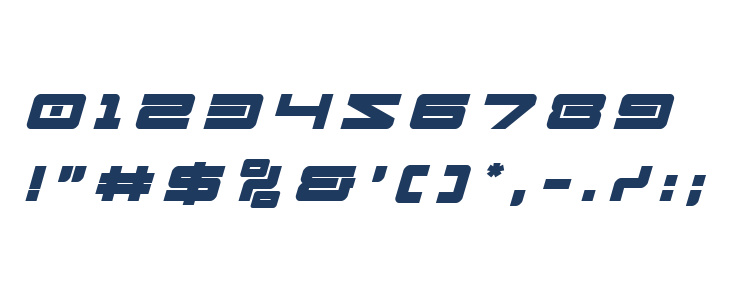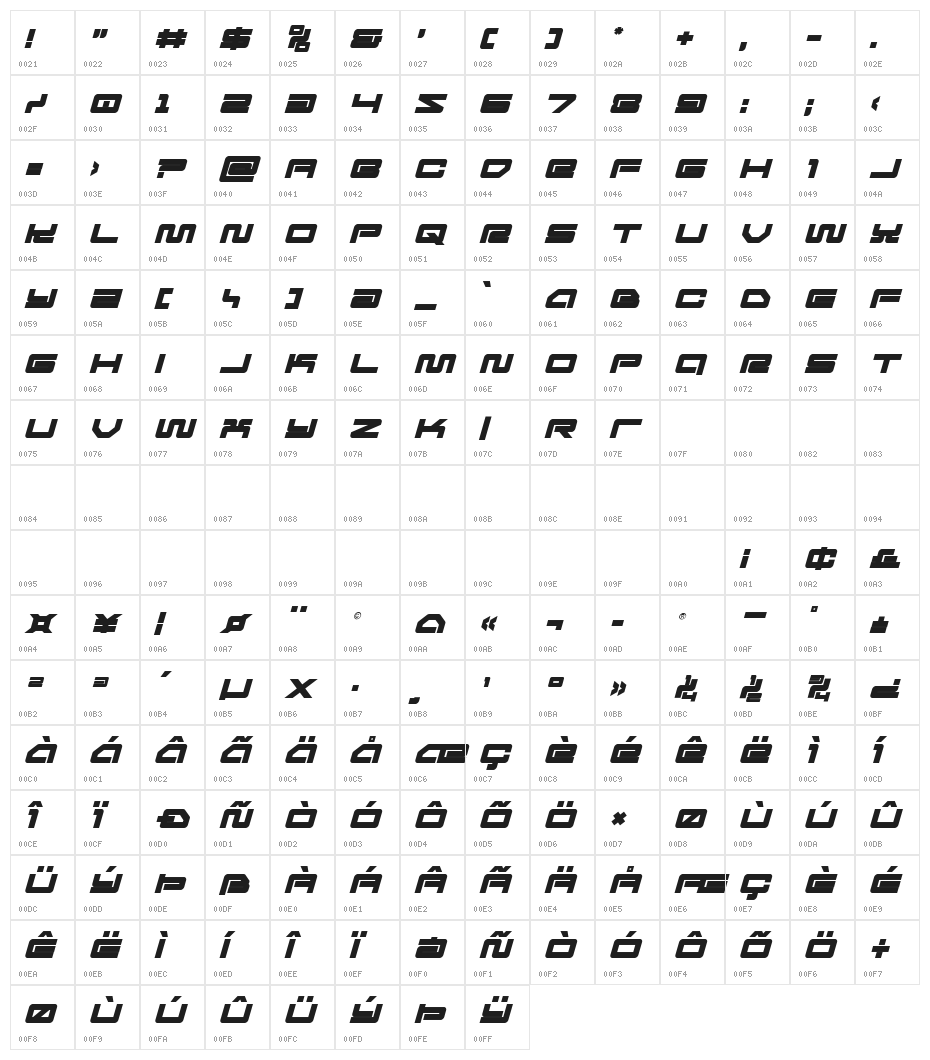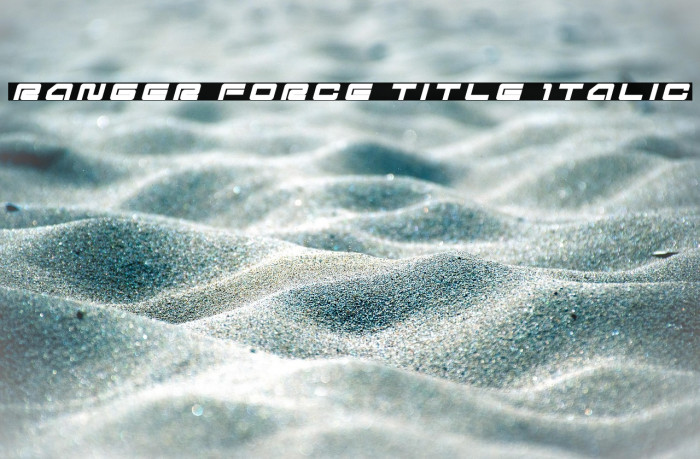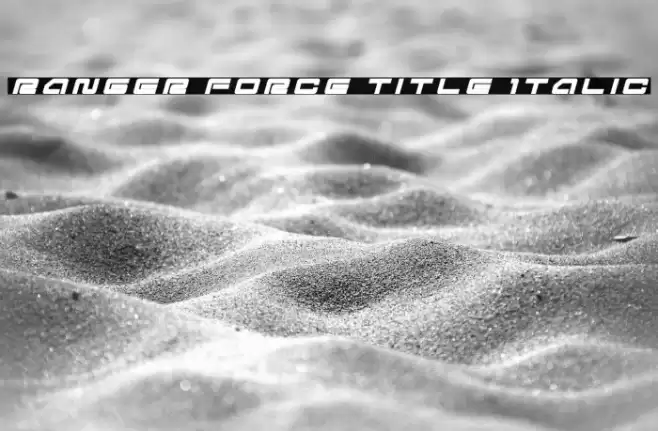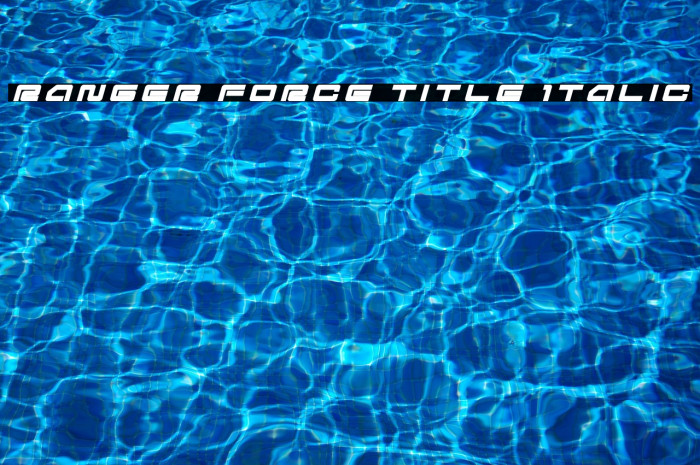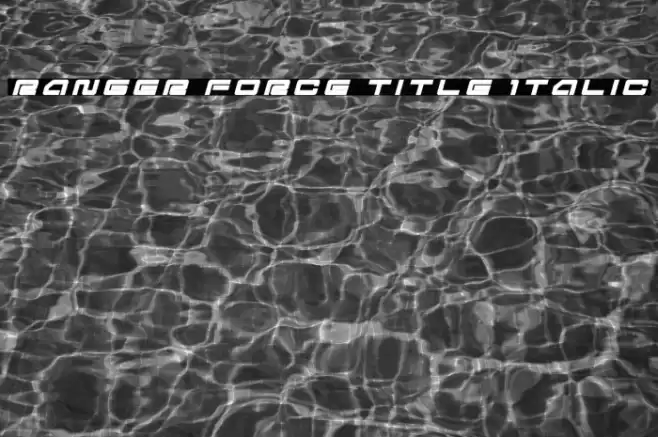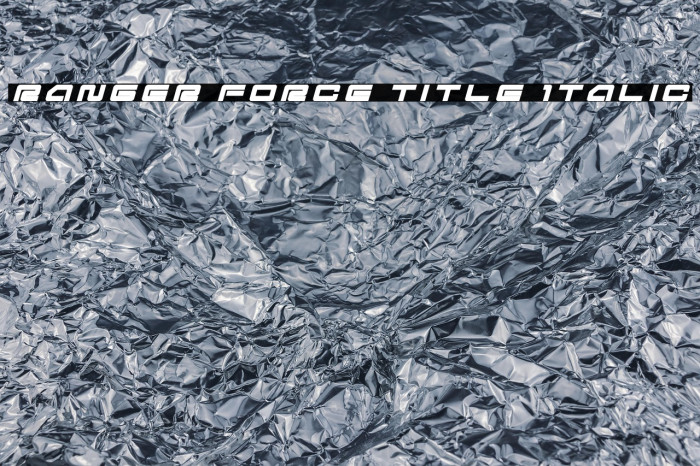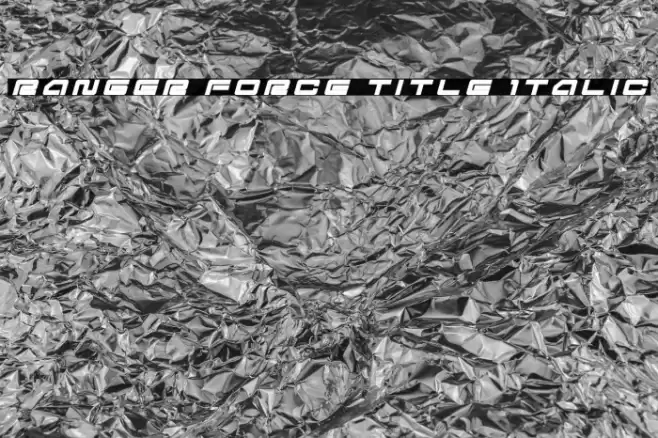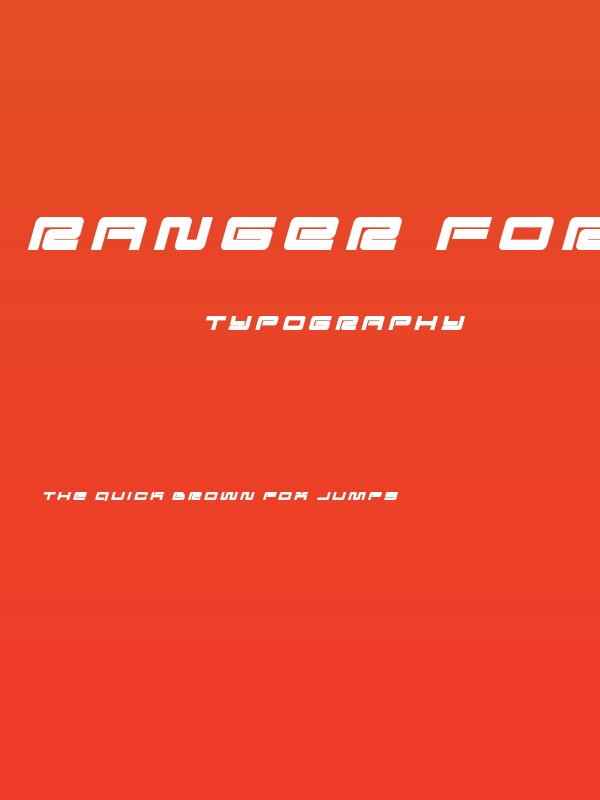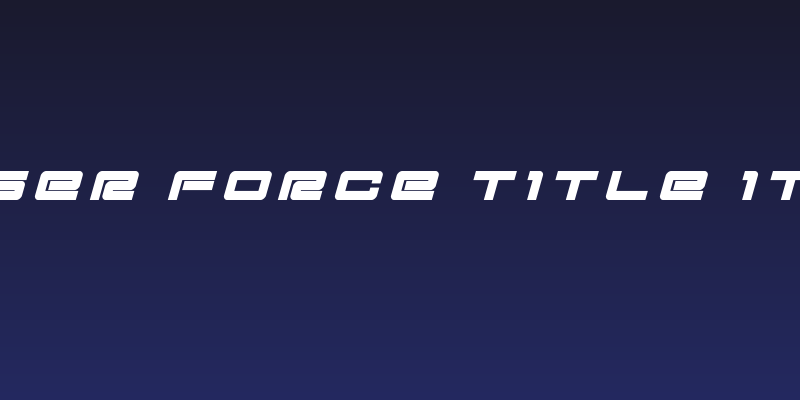
Ranger Force Title Italic Font
Ranger Force Title Italic Description
This font features a bold, futuristic design with a distinct italic slant, giving it a dynamic and forward-moving appearance. The characters are angular and geometric, with sharp edges and a strong presence. The uppercase letters are particularly striking, with a uniform height and consistent style throughout. The lowercase letters maintain the same boldness, ensuring readability while retaining the font's unique aesthetic. Numbers and special characters are designed to match the overall style, making them suitable for a variety of uses. The font's modern and sleek look makes it ideal for projects that require a strong, impactful visual statement.
| Proposed Projects | Ideal for sci-fi themed designs, video game titles, technology branding, and dynamic posters. |